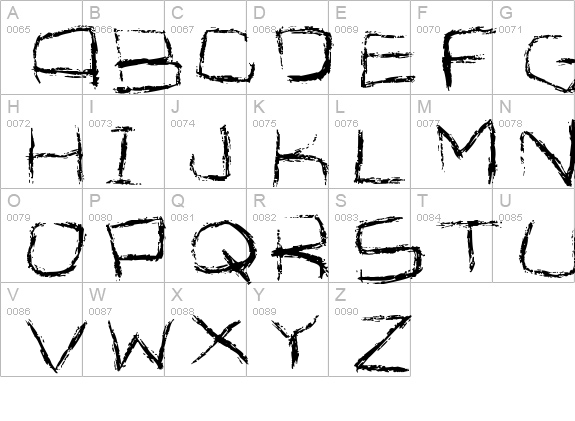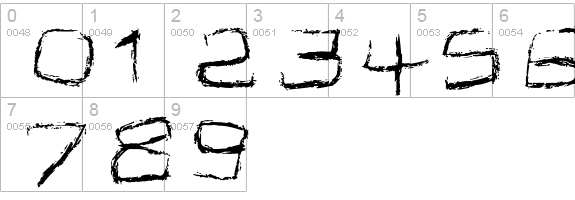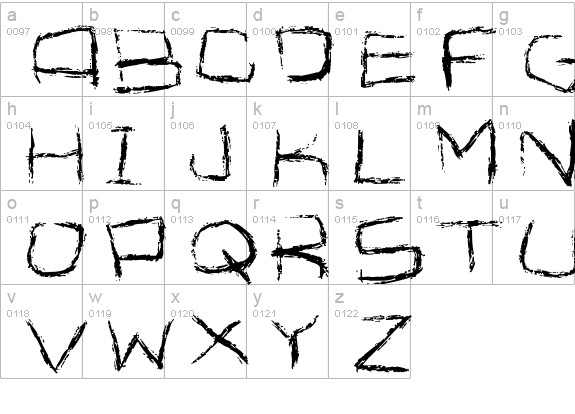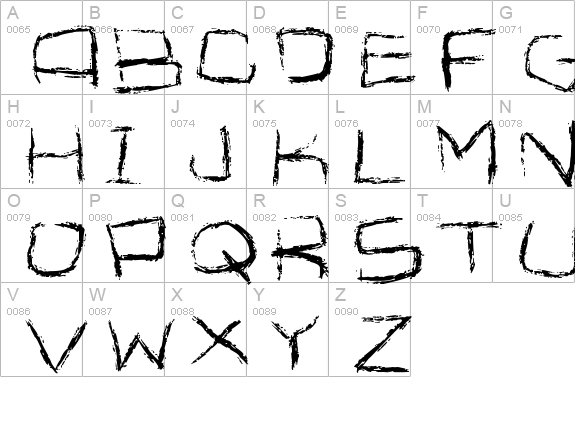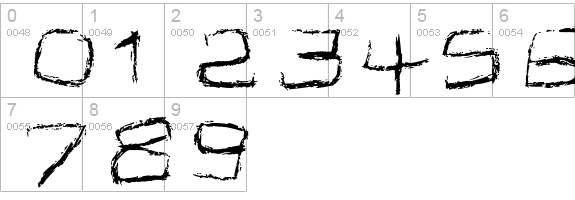
Spidery Font Details
Spidery is a free for personal use font in the Script category, designed by Darrell Flood. It has been downloaded 24 times and is available for Windows, Mac and Linux.
Spidery font is a captivating and intricate typeface that brings a touch of mystery and elegance to any design. With its delicate and spiderweb-like appearance, Spidery font is perfect for projects that require a unique and artistic flair. Each letter is carefully crafted to resemble the delicate threads of a spider's web, creating a visually stunning and eye-catching effect.